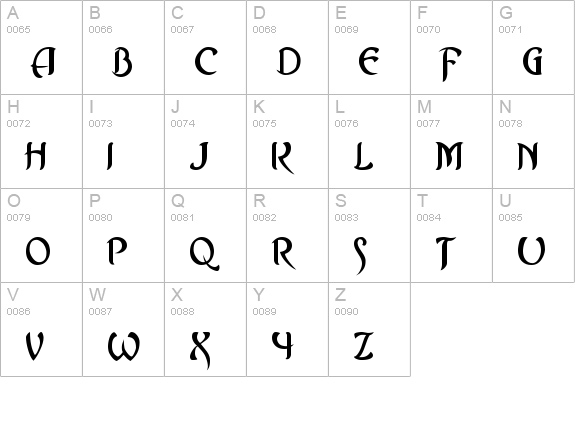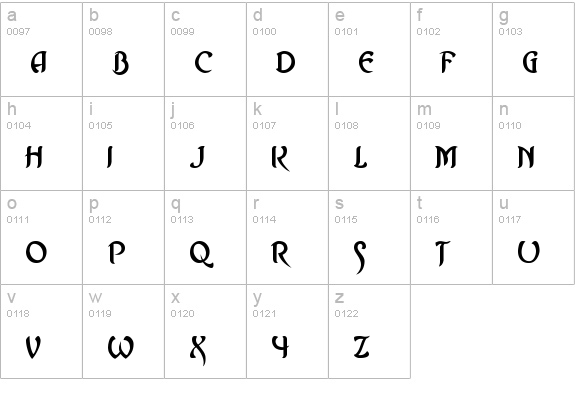
Asrafel Font Details
Asrafel font is a captivating and versatile typeface that exudes elegance and sophistication. With its sleek lines and stylish curves, Asrafel is perfect for a wide range of design projects, from branding to editorial layouts. This modern serif font strikes the perfect balance between classic and contemporary, making it a versatile choice for both print and digital designs. What sets Asrafel font apart is not only its stunning aesthetic appeal but also its accessibility. The best part? Asrafel font is completely free to download at FontsMarket.com. Whether you're a seasoned designer looking to add a fresh touch to your projects or a newcomer eager to experiment with typography, Asrafel font offers endless possibilities for creative expression. Elevate your designs with the timeless beauty of Asrafel font today!